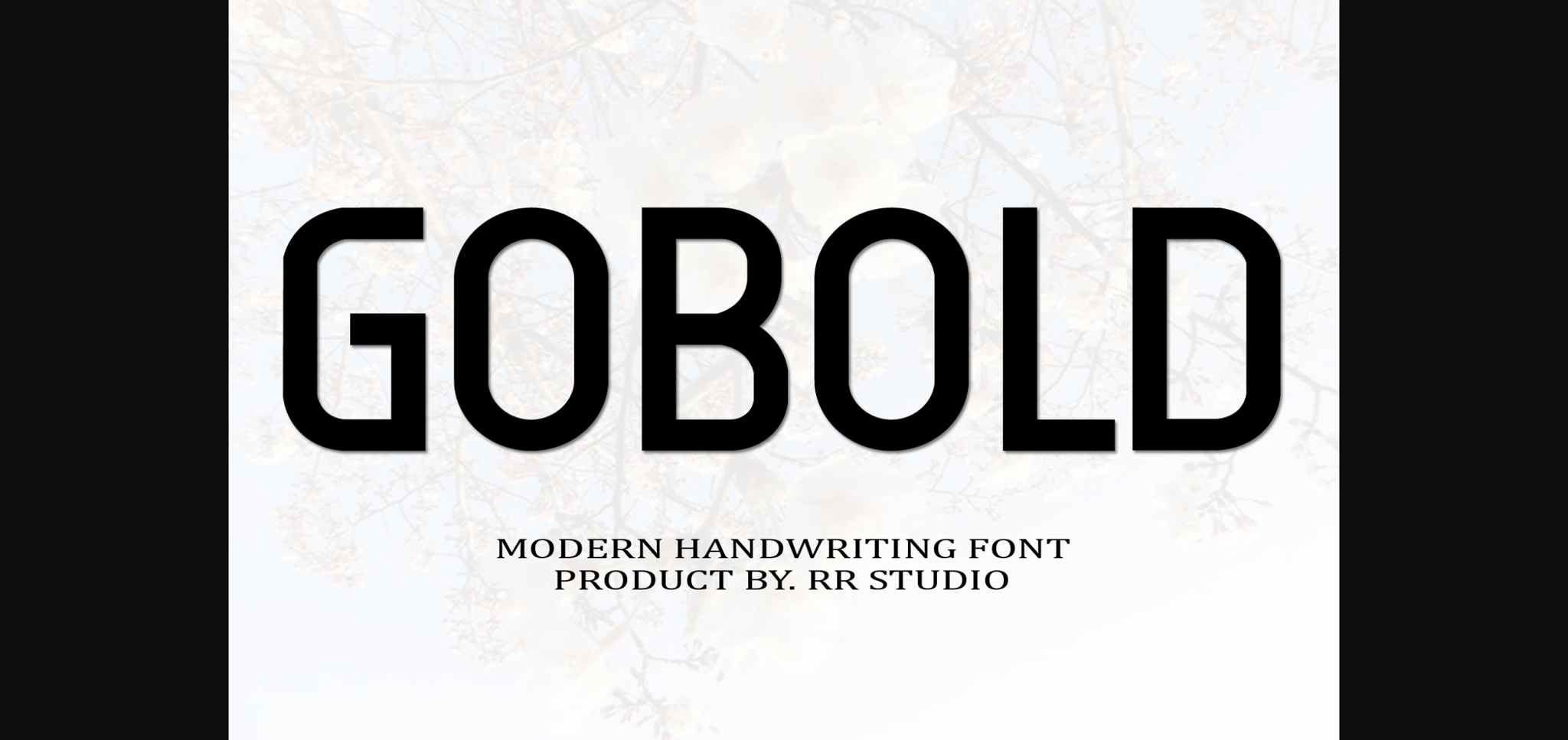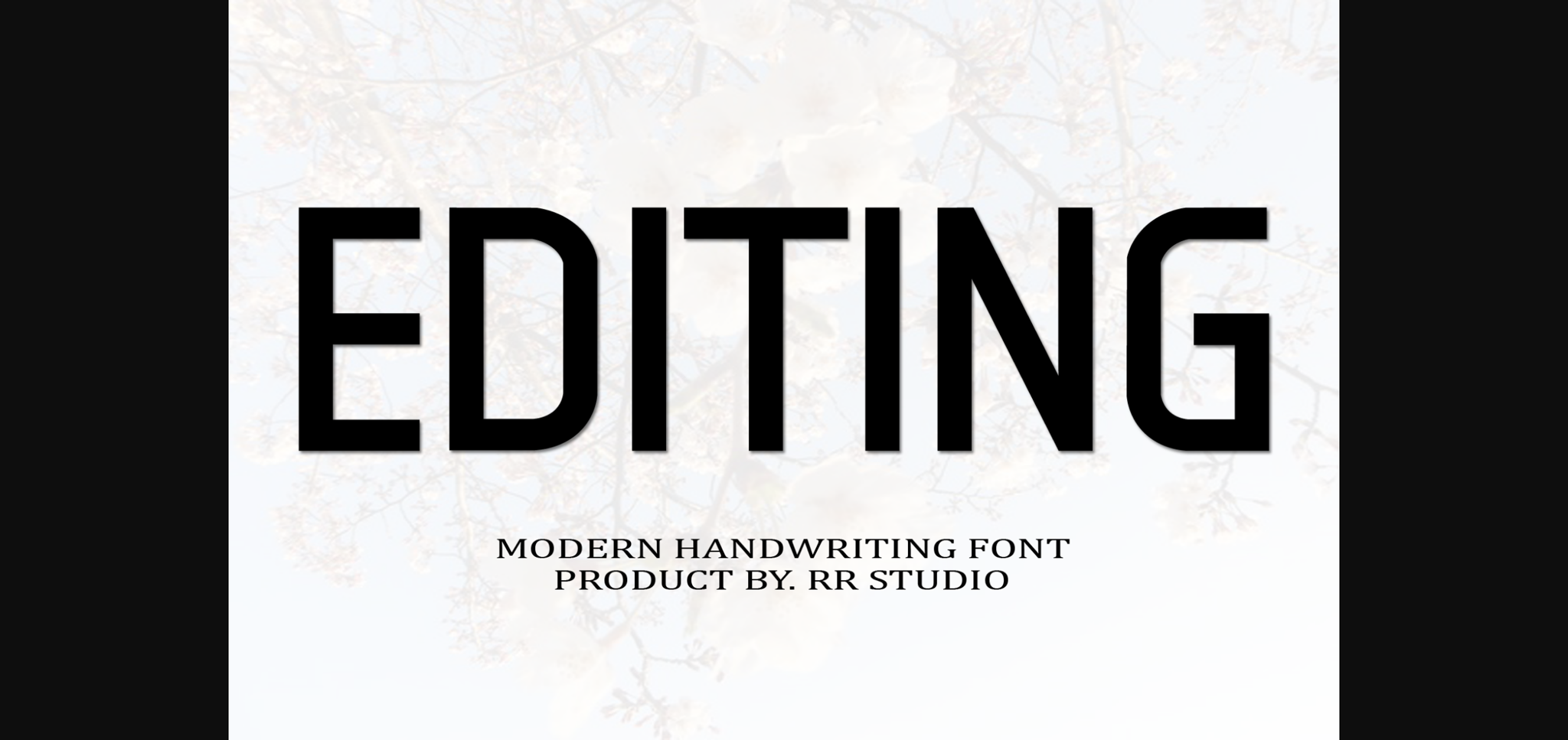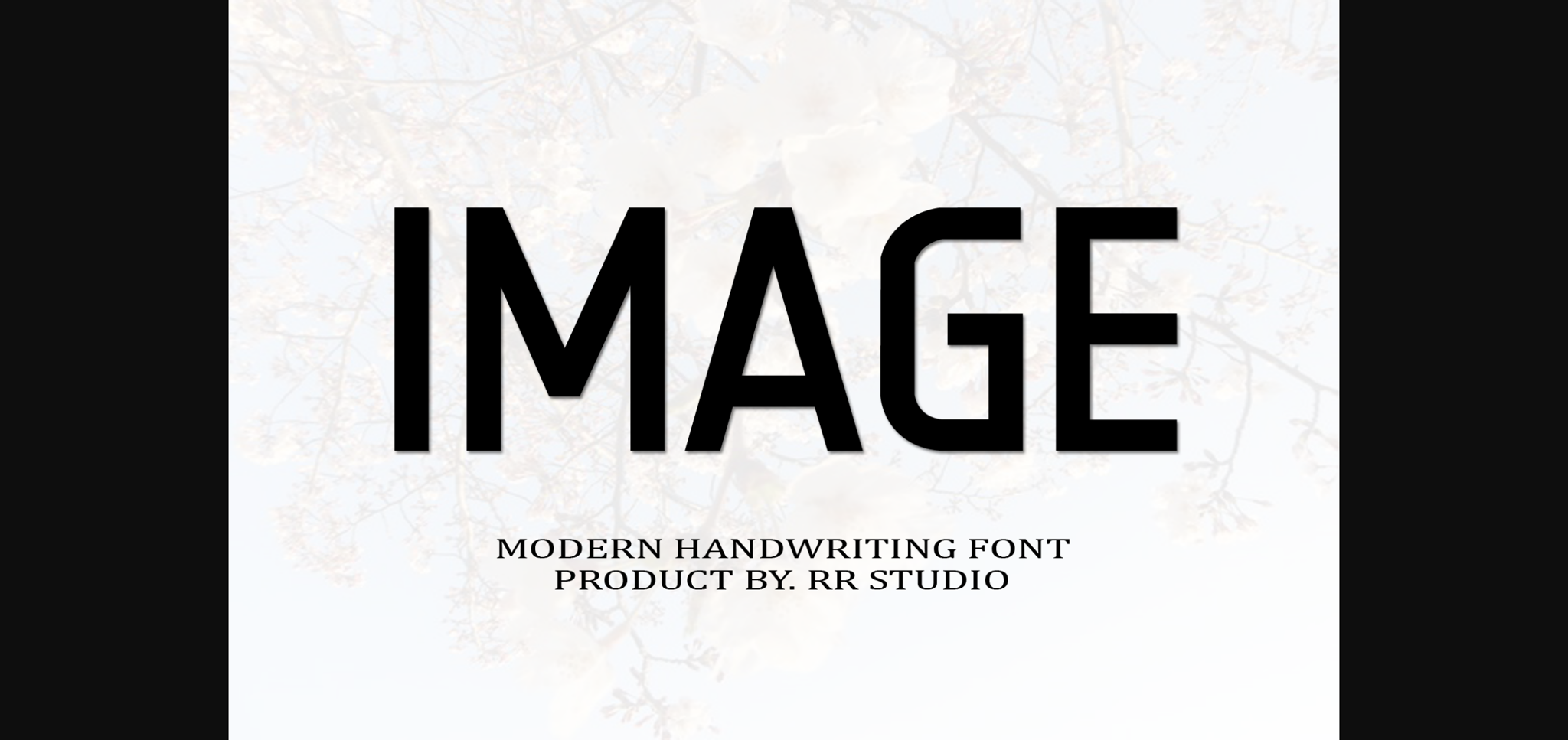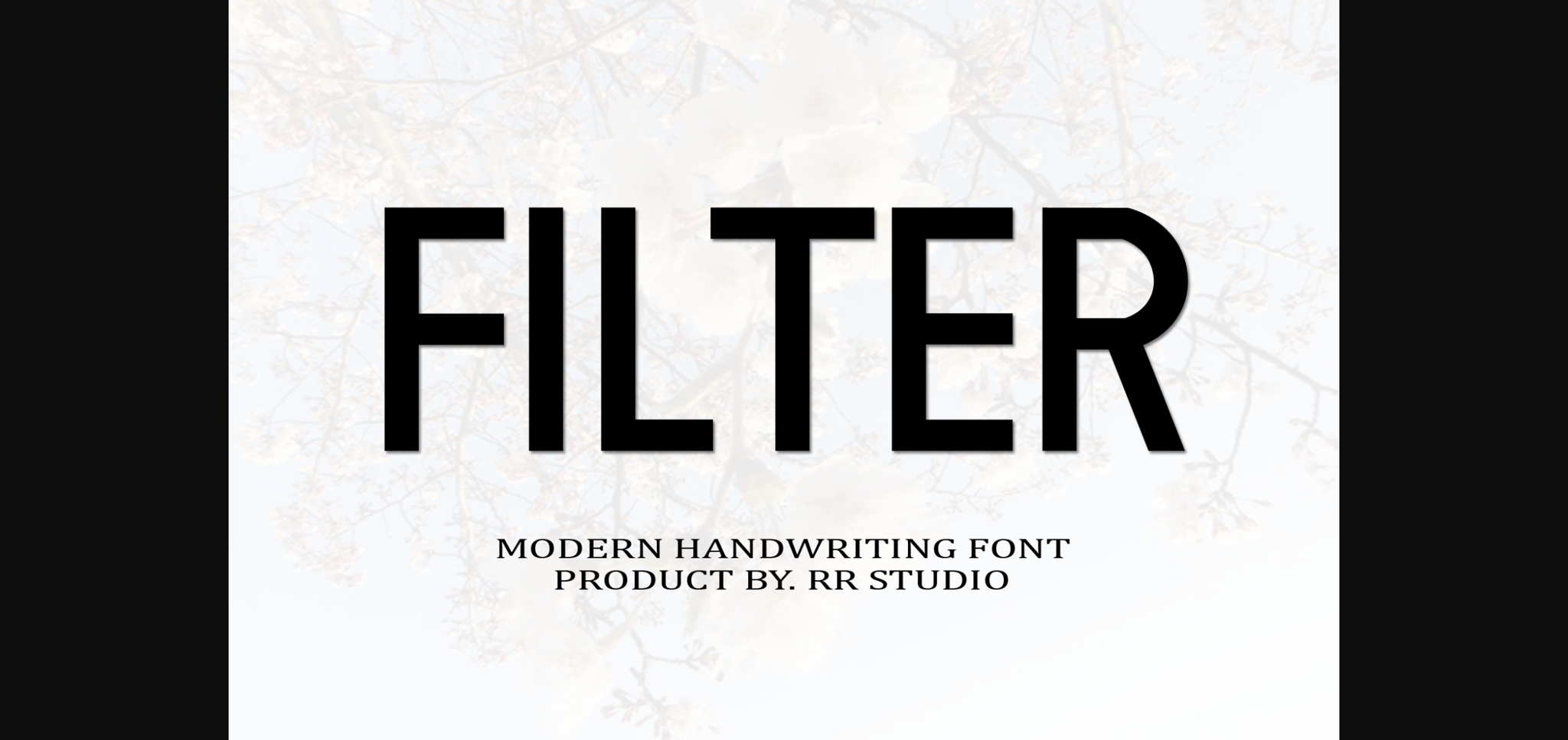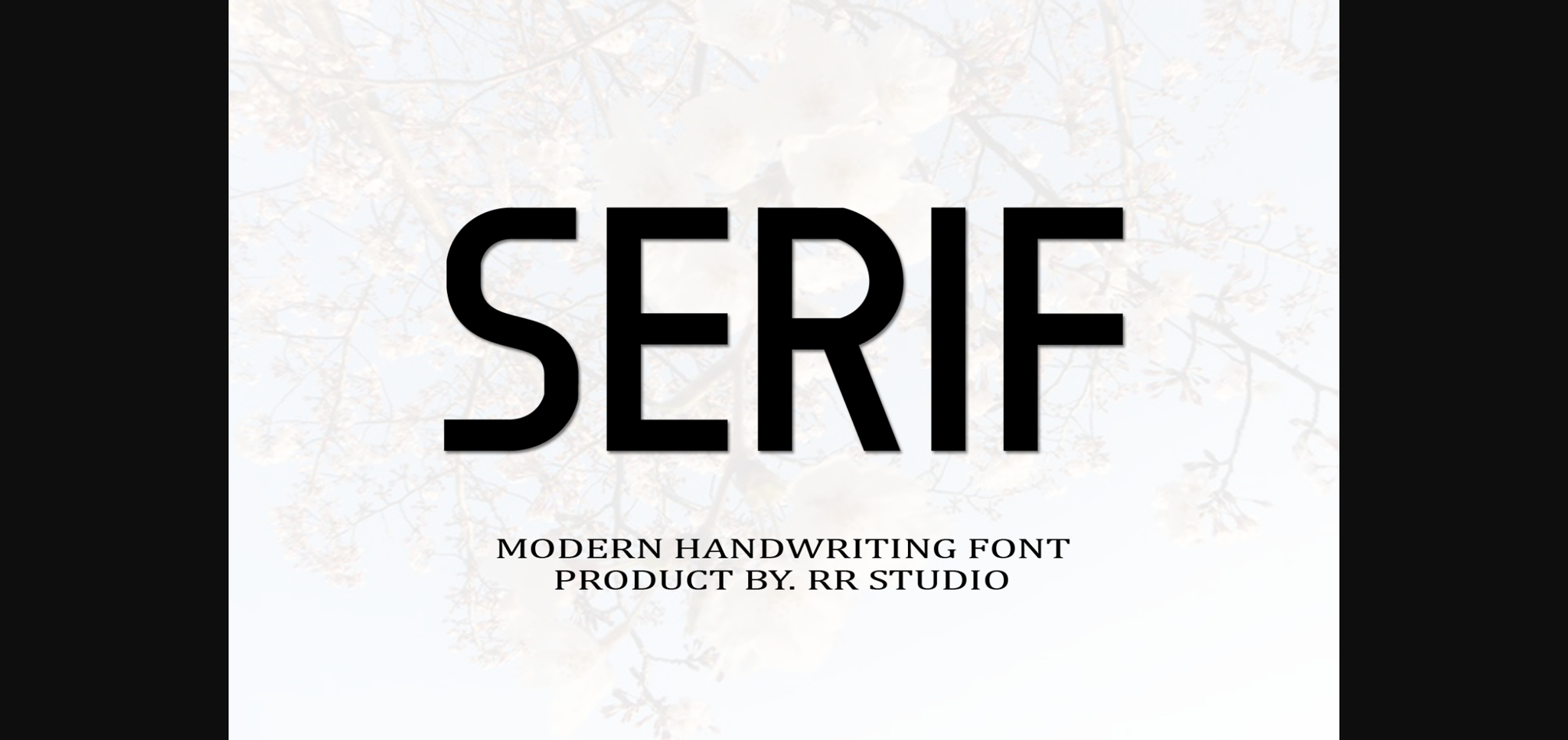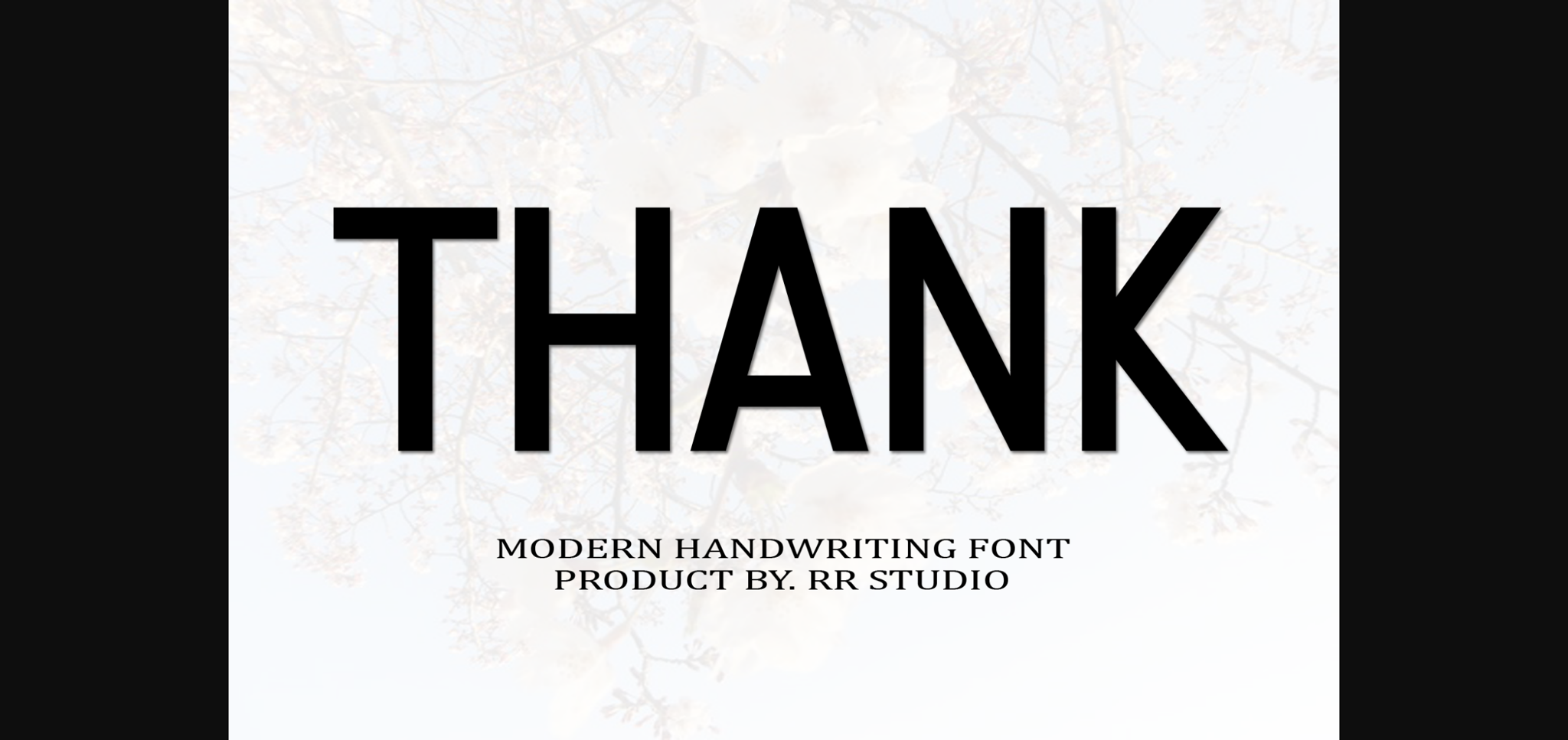
HomeSans Serif FontsGobold Font Sans Serif Fonts Gobold Font FacebookXPinterestWhatsApp 1 of 8 ... Gobold Font Poster 2... Gobold Font Poster 3... Gobold Font Poster 4... Gobold Font Poster 5... Gobold Font Poster 6... Gobold Font Poster 7... Gobold Font Poster 8... About Gobold Font Gobold is a stylish and incredibly elegant sans serif font. It looks stunning on wedding invitations, thank you cards, quotes, greeting cards, logos, business cards and every other design which needs a handwritten touch. DOWNLOAD NOW People also explored Drainwood Font Smartie Luna Font Peitago Goulya Font Just Sorry Font Pulen Font Hands Up Crazy Font Linkin Dream Font Majorelle Font 307 0 TagsGoboldGobold Font Previous articleHome Rothi FontNext articleGreat Thanks Fu Font LEAVE A REPLY Cancel reply Comment: Please enter your comment! Name:* Please enter your name here Email:* You have entered an incorrect email address! Please enter your email address here Website: Save my name, email, and website in this browser for the next time I comment. Personal Use Free Dr.Marz Personal Use Free Read more about this font Sushi Day Personal Use Free Read more about this font First Be Lucky Personal Use Free Read more about this font Beat My Guest Personal Use Free Read more about this font BLOG Free Fonts Risk: Why Free Fonts Can Be Dangerous for Designers Free Fonts Risk: Why Free Fonts Can Be Dangerous for Designers Using free fonts is a common practice in web and graphic design. However, the... Fonts That Capture the Spirit of New York City Modern Sans-Serif Fonts That Brands Love in 2025 Top 10 Handwritten Fonts That Elevate Your Designs